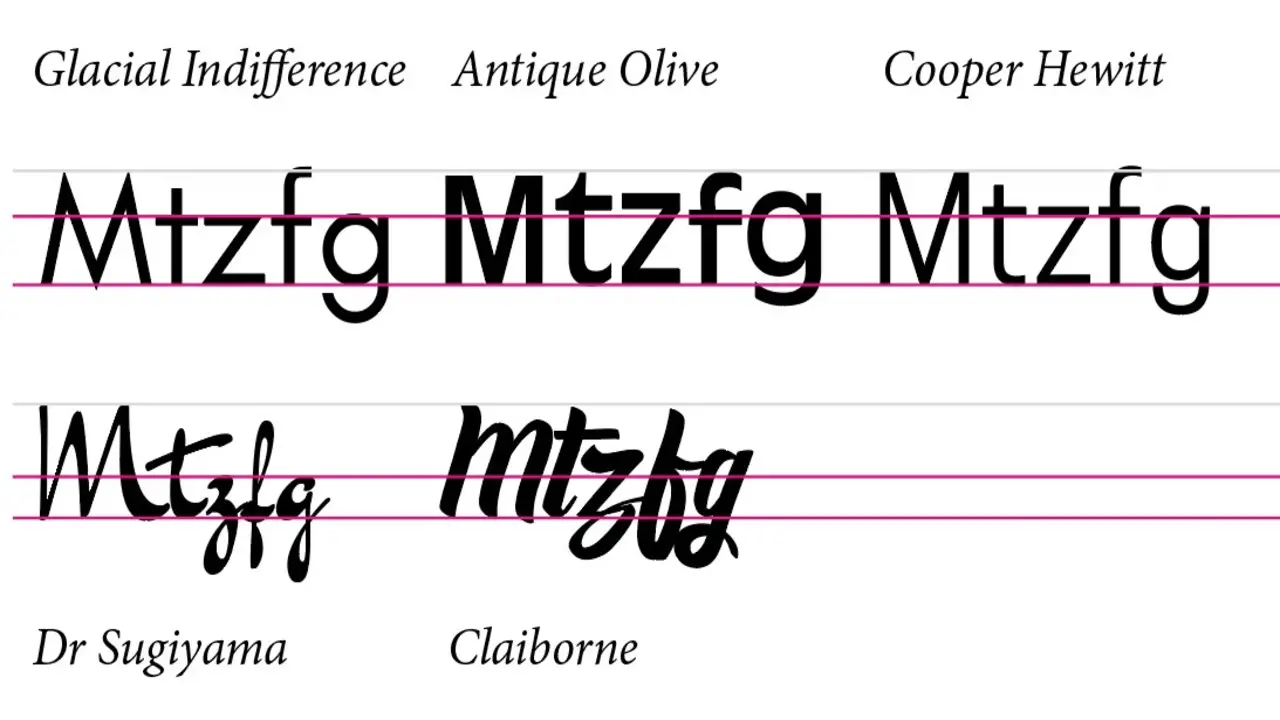
When writing letters, font size may not be the first thing that comes to mind. The standard font size for letters is usually 12-point, which balances readability and a professional appearance.
If space is limited, you can opt for slightly smaller sizes like 10 or 11-point. Remember to choose a legible font style that complements the chosen font size for your letter. However, choosing the right font size is crucial for ensuring readability and making a professional impression.
This blog will unlock the guidelines for the right font size for letters. We will explore the factors to consider when selecting a font size, understand its impact on readability, and provide best practices for formatting letters with the standard font size. Here, you will have all the information you need to confidently choose the optimal font size for your letters.
Overview Of Standard Font Size For Letters
Selecting the right font size is crucial for effective communication. The standard letter size is usually 12-point, providing readability and a professional look. If space is limited, you can opt for a slightly smaller size, like 10 or 11-point. It’s important to balance legibility and space usage.
Also, choose a legible font style that complements the size. Consider recipient preferences and guidelines as well. Using the right font size enhances the impact and readability of your letter. Here we were going to discuss standard font size for letters
Importance Of Choosing The Right Font Size
The font size you choose for your letter affects readability and message delivery. The standard font size is typically 12 points, but consider factors like the recipient’s age and visual impairment. A larger font size (14 or 16 points) enhances readability for older readers or those with visual impairments. A smaller font size (10 or 11 points) may be suitable to fit more content on a page. Understanding the letter’s design and layout is important for visual appeal and ease of reading.
Factors To Consider When Selecting Font Size For Letters
When choosing a font size for letters, consider recipient’s age and visual impairment. The standard is 10 to 12 points, but older readers or those with visual impairments may require 14 to 16 points. Choose a legible font that remains easy to read at the selected size. Also, consider the medium (print or digital) as it can impact readability. Considering these factors, your letters will be visually appealing, easy to read, and effectively convey your message.
Understanding The Impact Of Font Size On Readability
When composing letters, font size greatly affects readability. Using a larger font size, like 14 points, is recommended for better readability, especially for older adults or those with visual impairments. The chosen typeface can also impact the perception of font size. Consider the recipient’s preferences and requirements when selecting the font size. Proper spacing between lines and paragraphs improves readability, regardless of font size.
Guidelines For Choosing The Optimal Font Size For Letters
Choosing the right font size is crucial for letter readability and professionalism. Use a larger font size of 12 points for formal or business letters. Remember that font type affects perceived size. Balancing readability and professionalism helps convey your message effectively.
Consider spacing, paragraph structure, line spacing, and font styles like italics sparingly. Proper punctuation and capitalization also enhance readability. By following these guidelines and considering your audience’s needs, you can create impactful letters with the optimal font size.
Commonly Used Standard Font Sizes For Letters
Choosing the right font size is crucial for letter readability and presentation. The standard size is typically 12 points, balancing readability and space efficiency. However, different fonts may appear larger or smaller at the same point size. Consider factors like paragraph spacing, line spacing, and typeface when selecting the appropriate font size. This ensures professional, easy-to-read, and visually appealing letters.
Determine The Appropriate Font Size For Different Types Of Letters
When choosing font size for different types of letters, consider the purpose and recipients. Formal business letters should be 10-12 points for readability and professionalism. For individuals with visual impairments, use larger sizes, like 14-16 points. Personal or informal letters allow flexibility in font size selection based on readability and aesthetics. Choosing the right font size enhances the impact and engagement of your letters.
Best Practices For Formatting Letters
Formatting letters properly is important for appearance and readability. Use a font size of 12 points, which is both readable and space-efficient. However, consider using a larger font size, like 14 or 16 points, when writing to visually impaired individuals.
Choose recognized fonts like Times New Roman, Arial, or Calibri for legibility. Following these guidelines will make your letters look professional and be easily readable by recipients.
4.What Is The Right Font Size For Letters Guideline?
Ana: Using a font size of 10-12 points for letters is recommended. Choose a size that is easy to read, and consider using a slightly larger font if needed. Also, consider the recipient’s needs and preferences when selecting the font size.
5.What Should Be The Font Size Of A Business Card?
Ana: The font size of a business card is an important decision that should not be taken lightly. Choosing a font size between 10-12 points is recommended to ensure legibility and readability without compromising the design.